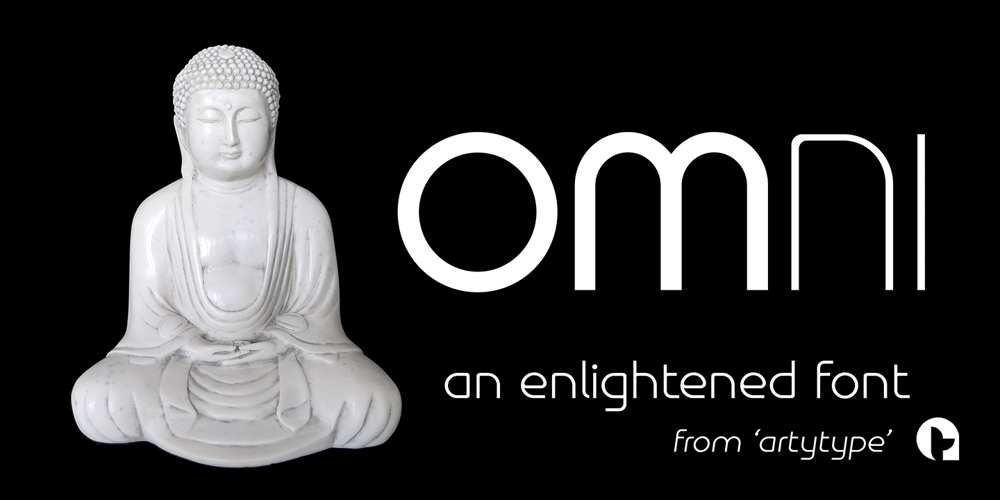
Omni Font Family was designed by James Marsh and published by ArtyType. Omni contains 8 styles and family package options. Typefaces don’t simply appear fully formed to a designer, even with a clear concept in mind, they evolve naturally during the design & development process. Out of the current ‘Artytype’ collection, Omni has evolved the most, being a stripped back off-spring from several exploratory exercises. At first glance and particularly at small scale, you’d be forgiven for thinking the basic characteristics have a conventional outlook; but on closer inspection, it’s own distinctive, clean cut, subtle styling becomes apparent, revealing enough personality to stand alone or complement a wide variety of projects; subsequently, it’s a font that won’t go out of style quickly and may even become a modern classic in time. The Omni family has 2 distinct styles, sans and serif, each style being available in 4 weights; all 8 fonts have slanted options to match making a total of 16 fonts. Dictionary definition of OMNI: Combining form – Of all things, in all ways or places. Quite an apt name for a font with ubiquitous aspirations.